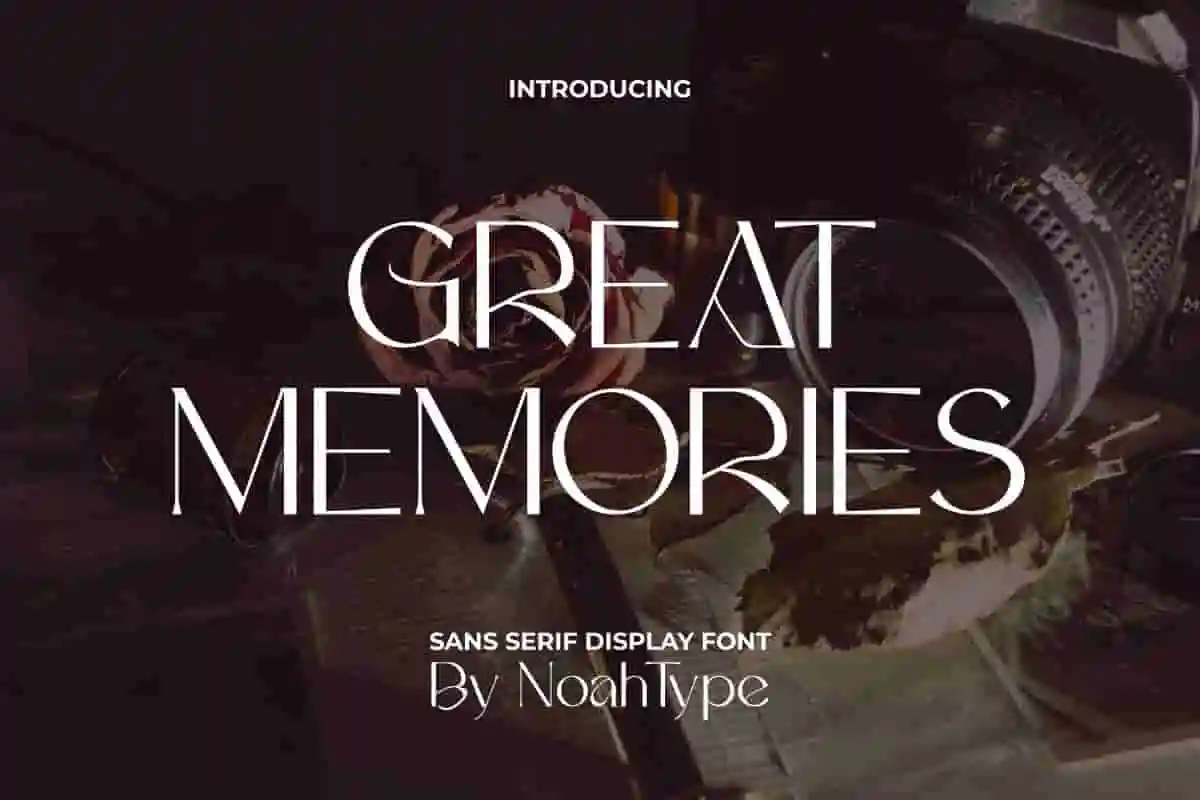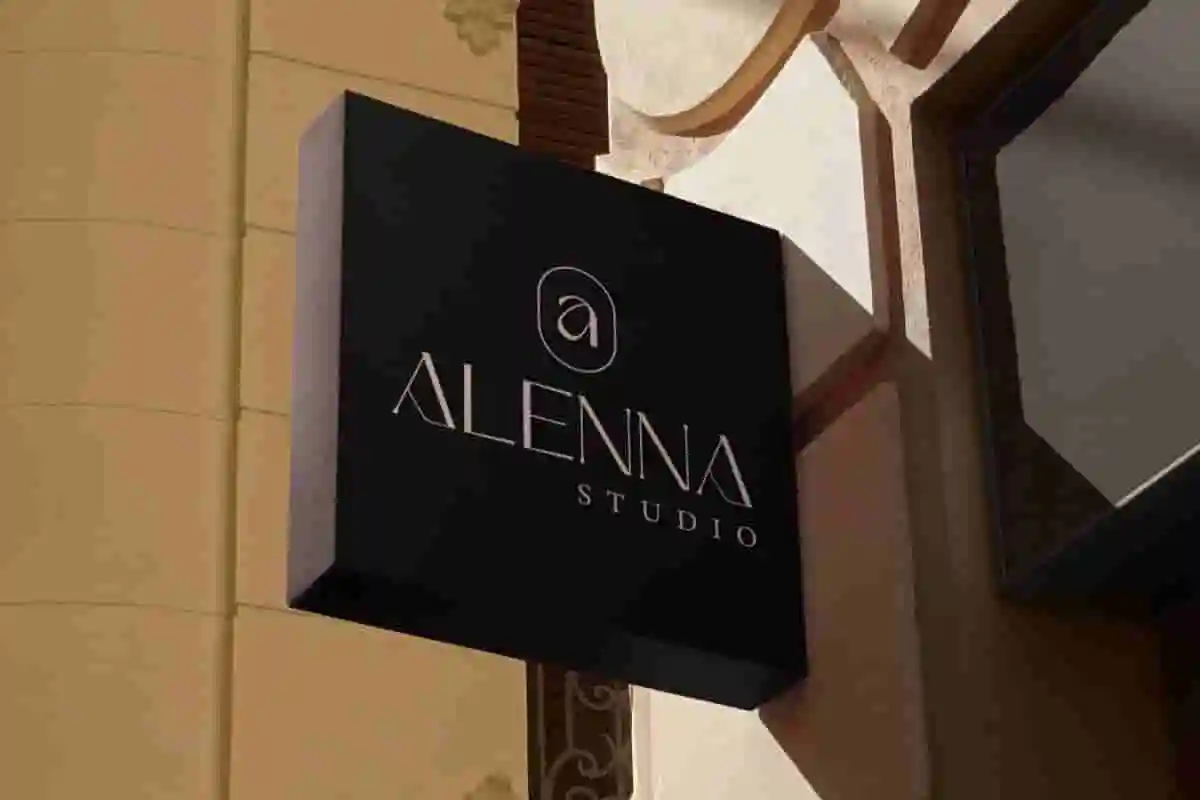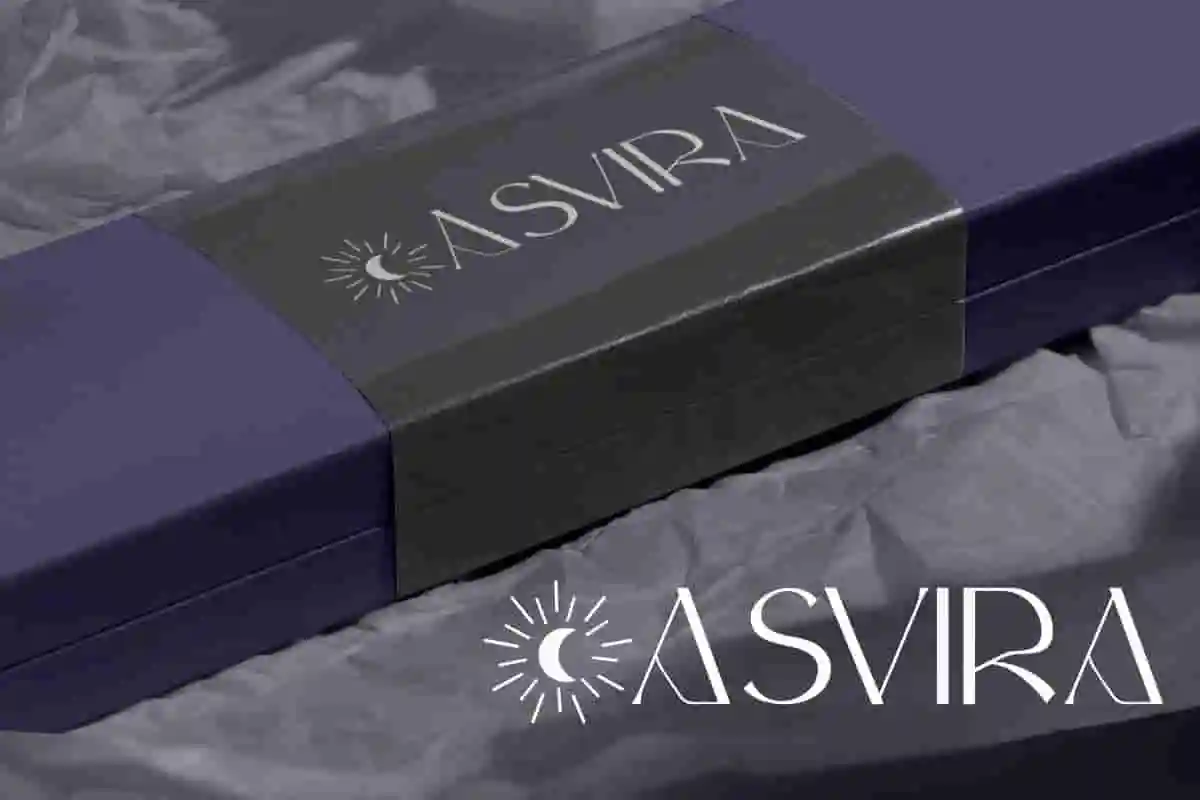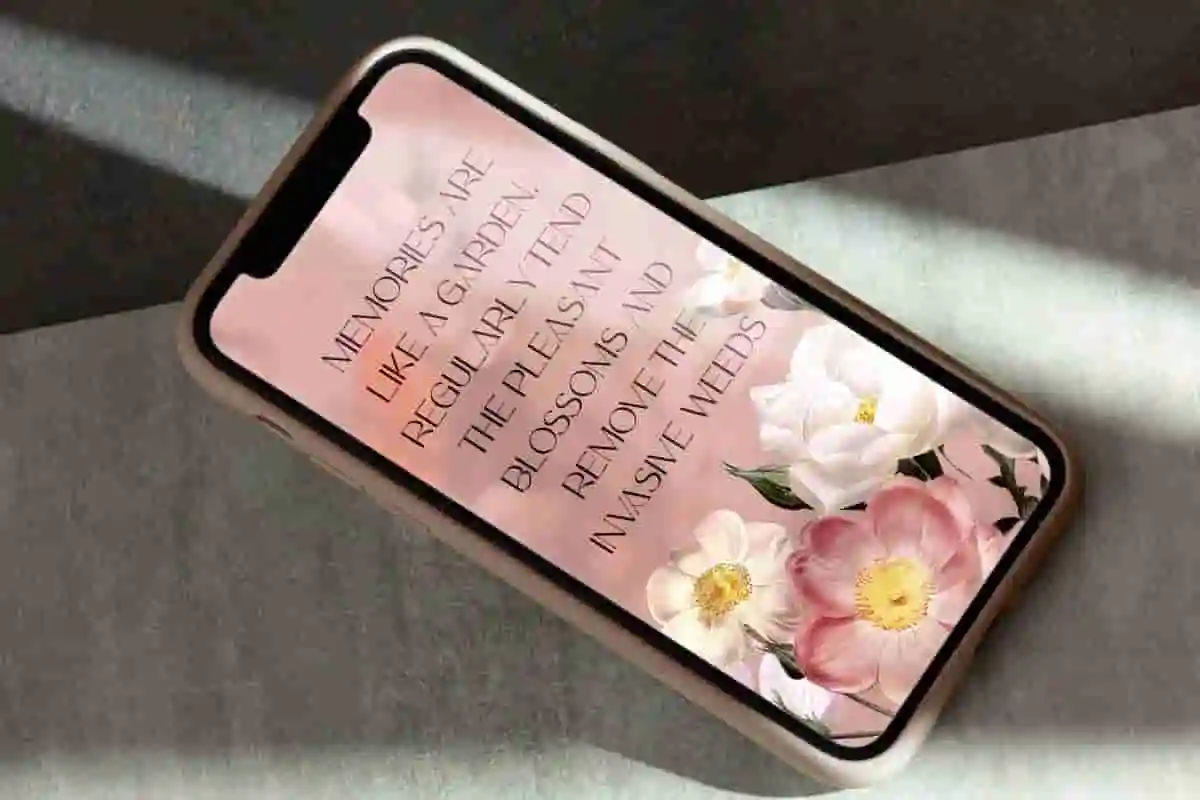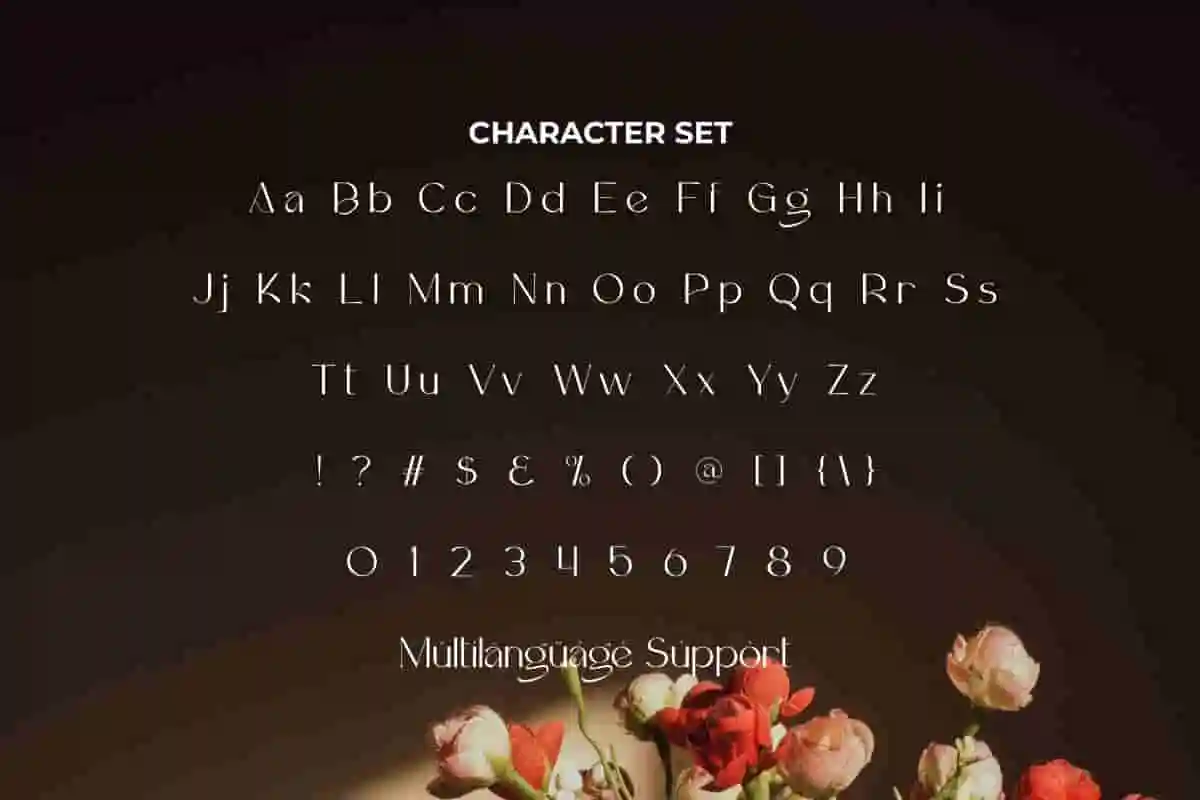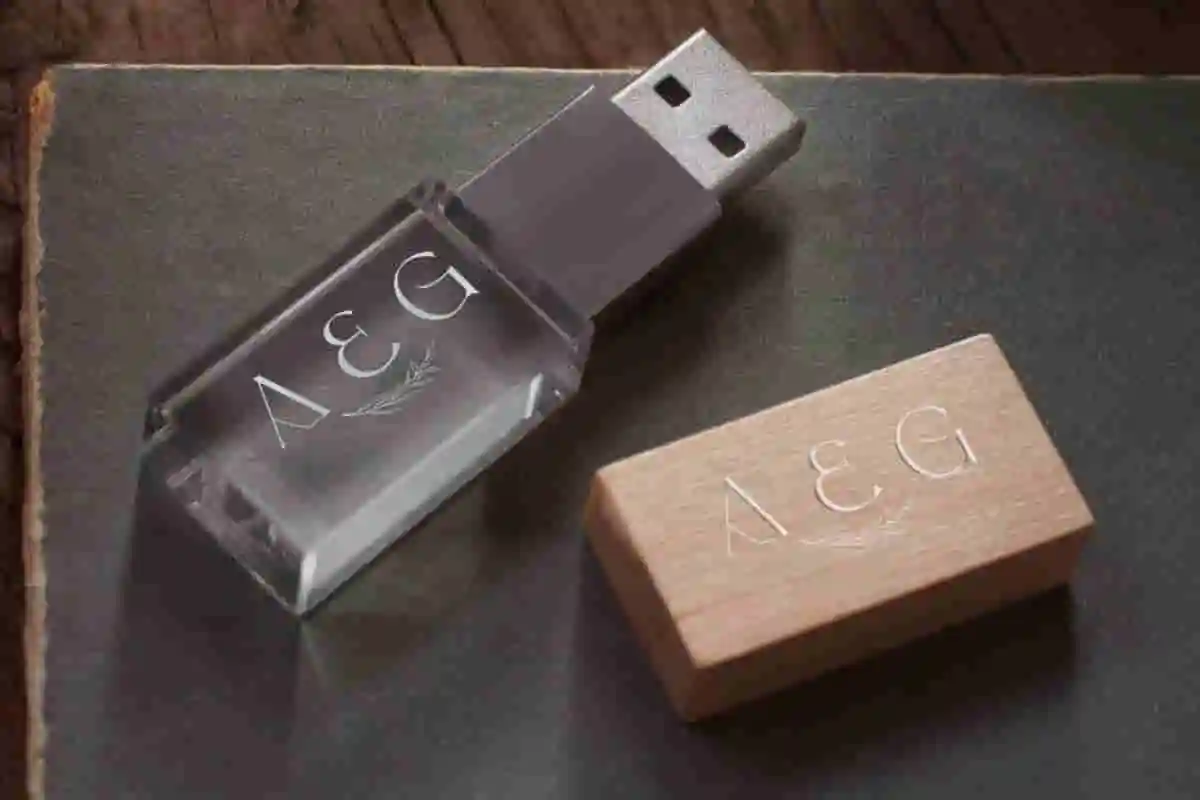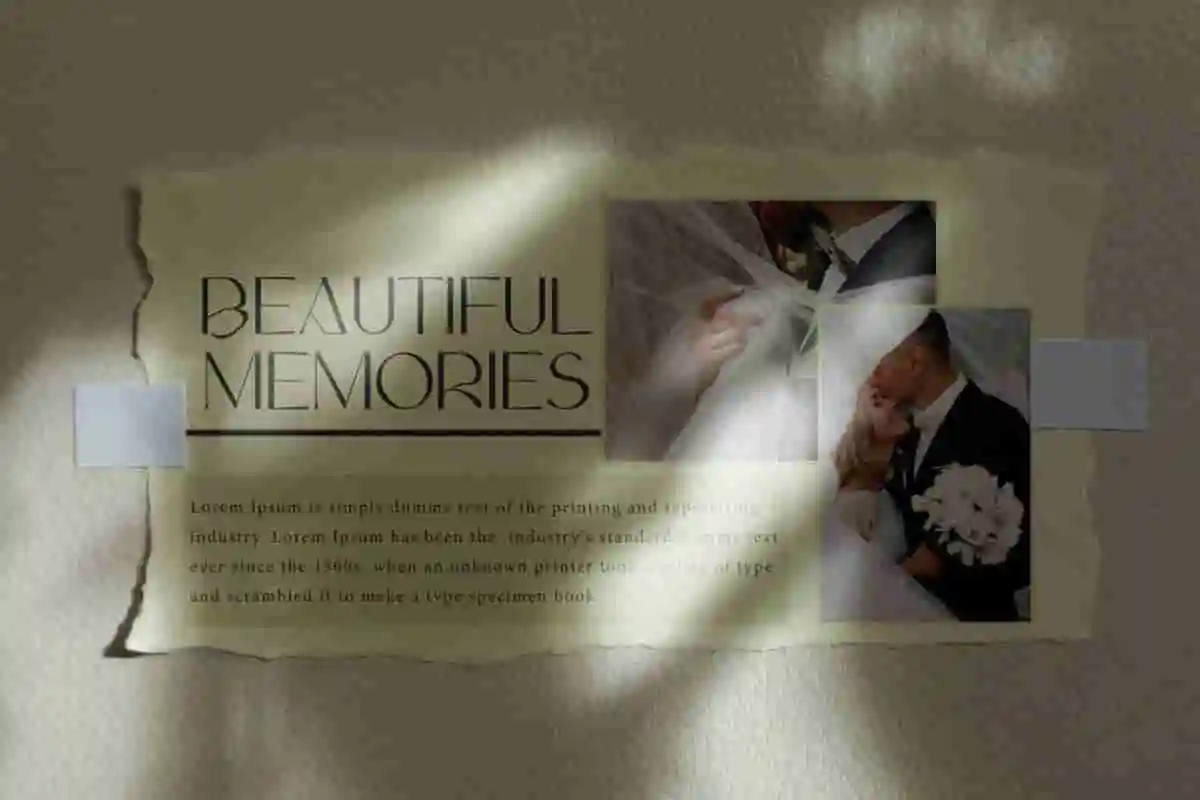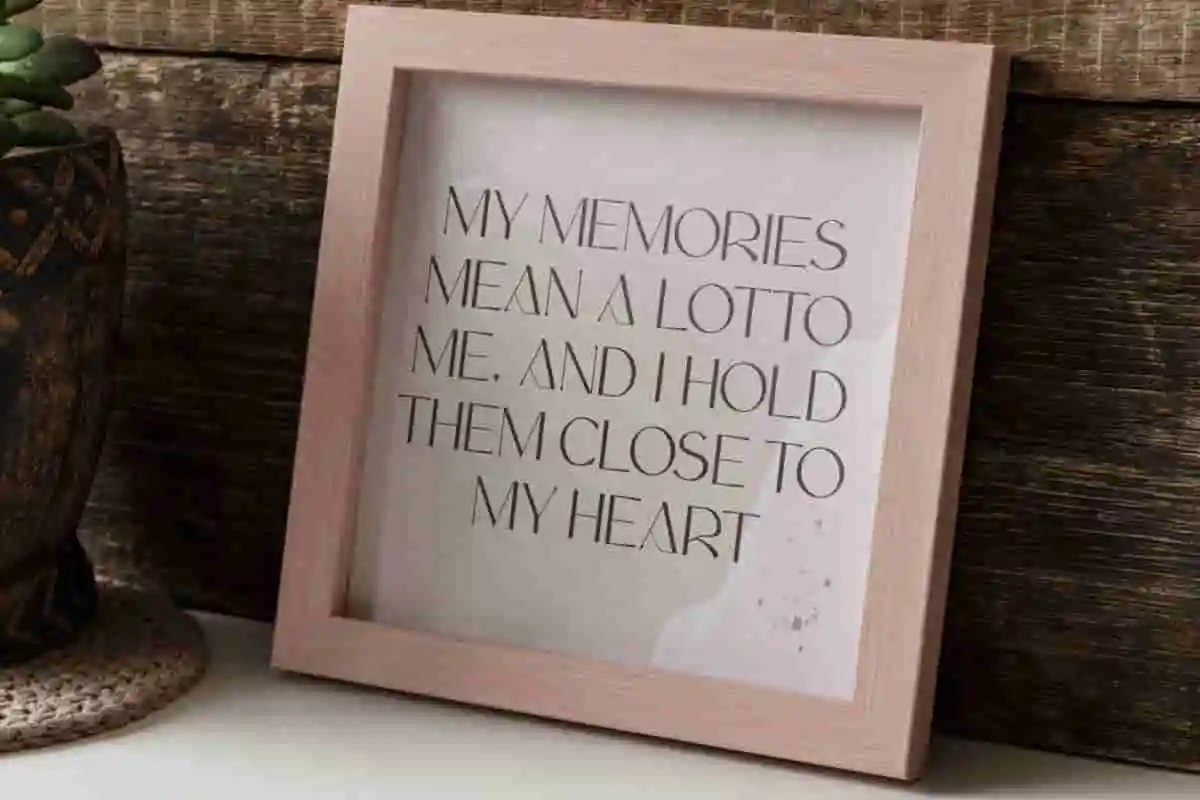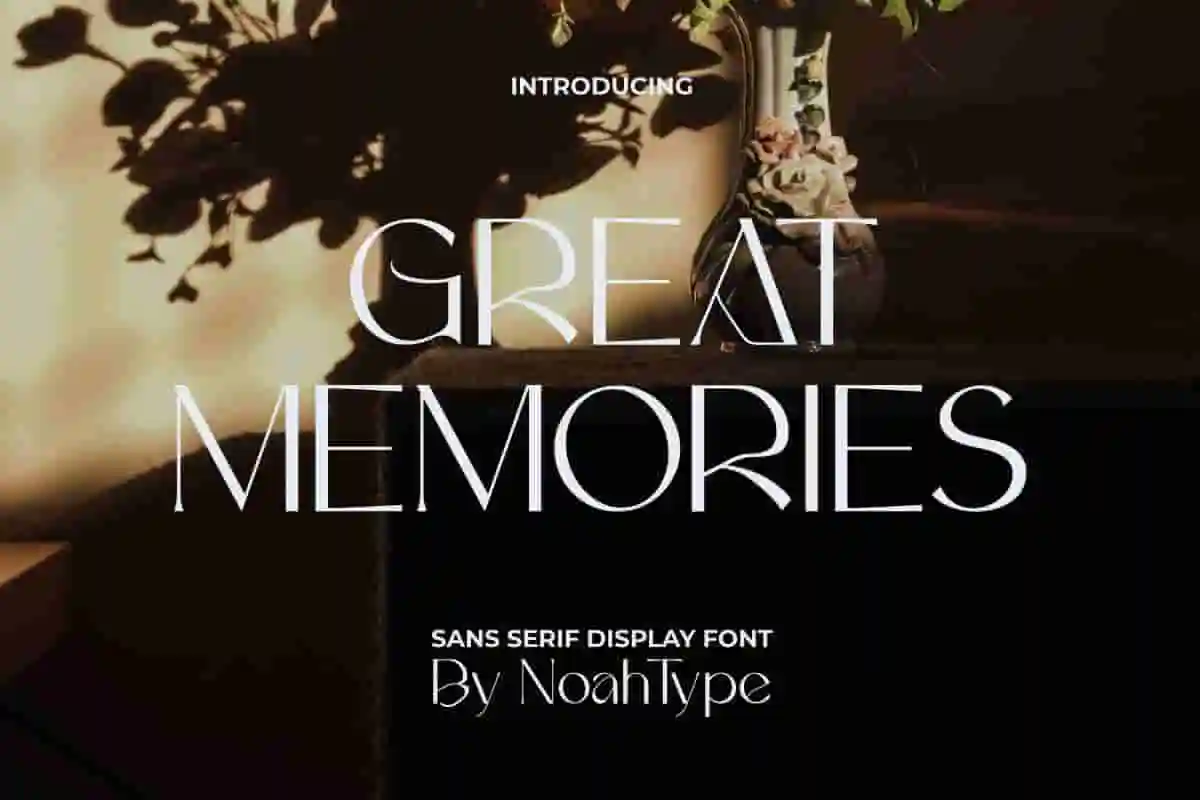
Great Memories Font is a modern minimalist sans serif display font, created by NoahType. This font has a thin and sleek lines on the letters that will make your designs looks stunning! It would be perfect choice for many industries, such as accessories and jewelry, advertisement, beauty product, café, fashion, furniture, handicrafts, printing, publishing, resort and hotel, restaurant, and more!
Great Memories Font includes full set of Uppercase and Lowercase Basic Characters, Numerals and Punctuation. This font would be perfect for designs that need a beautiful and stylish look that can makes you in fall in love, such as business card, catalog, custom design, label, magazine, poster, product packaging, screen printing, signage, stationery, sticker, title, website, etc.